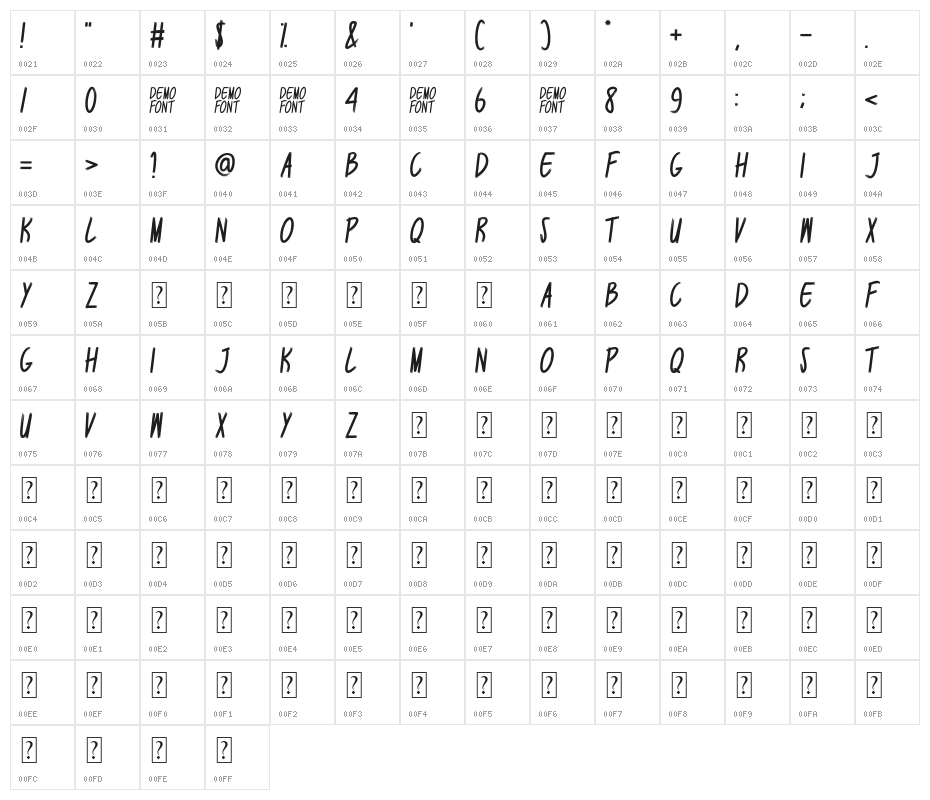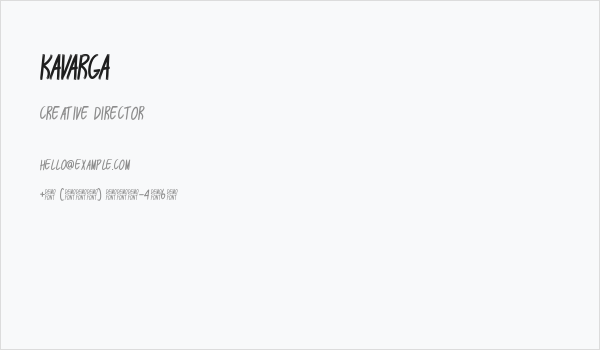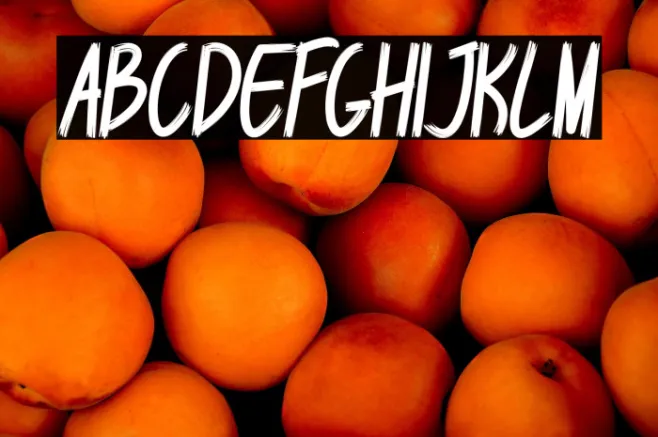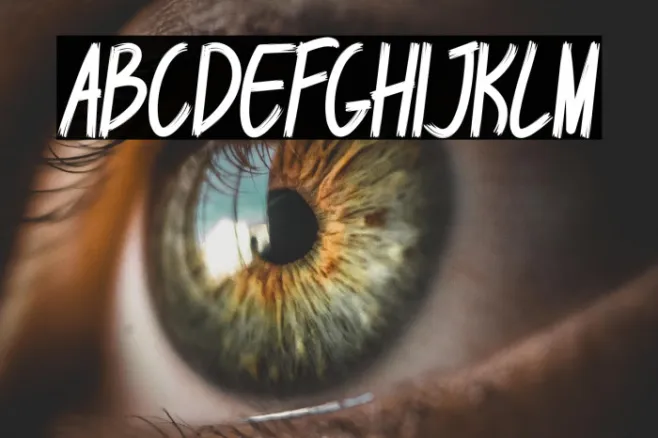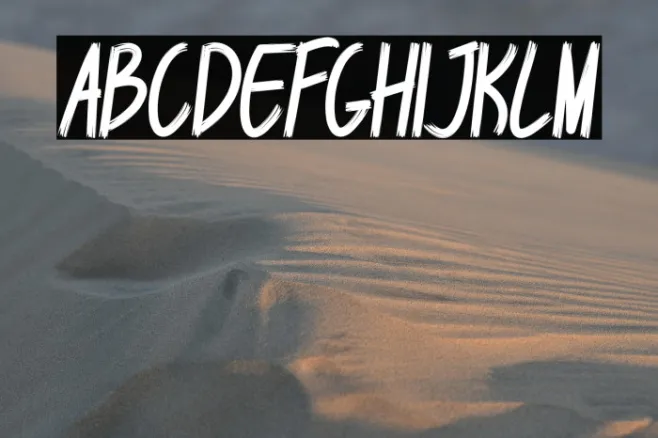
KAVARGA Font
KAVARGA Description
This font features a dynamic and energetic brush style, characterized by its bold and expressive strokes. The letters have a hand-drawn appearance, with irregular edges and varying thickness, giving it a lively and artistic feel. The uppercase and lowercase letters maintain a consistent style, with a slight slant that adds to the sense of motion. Numbers and special characters are designed with the same brush-like quality, ensuring a cohesive look across all glyphs. This font is ideal for projects that require a bold and creative touch, such as posters, logos, and headlines.
| Proposed Projects | Ideal for posters, logos, headlines, and any creative design projects requiring a bold, artistic touch. |